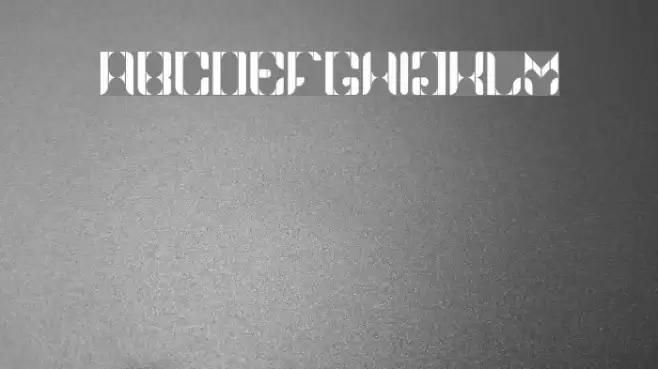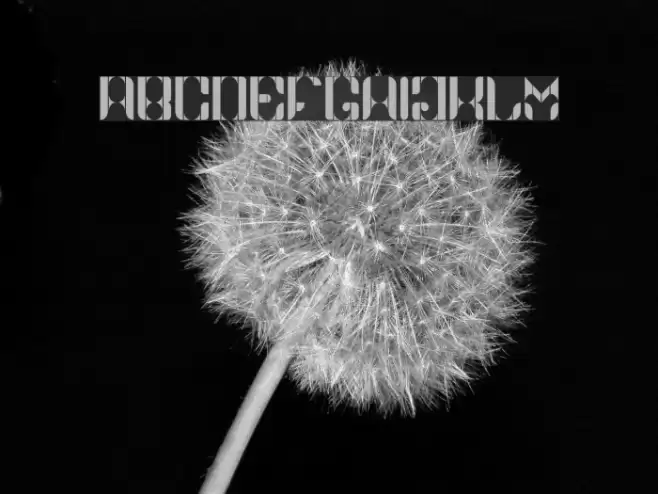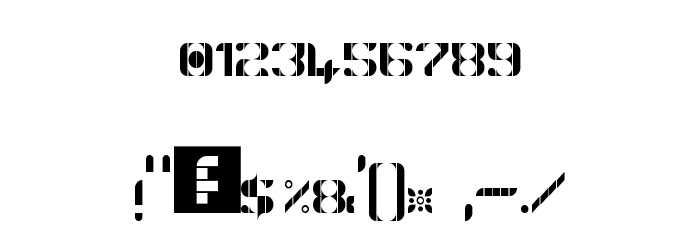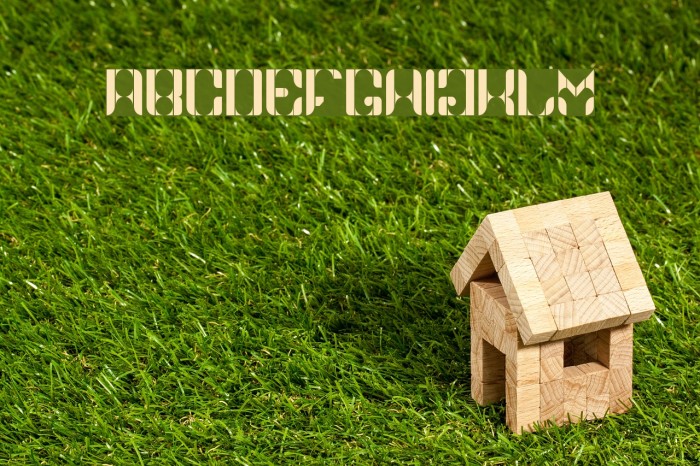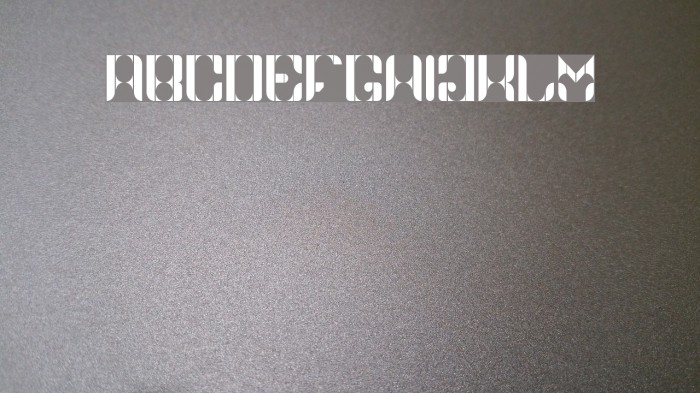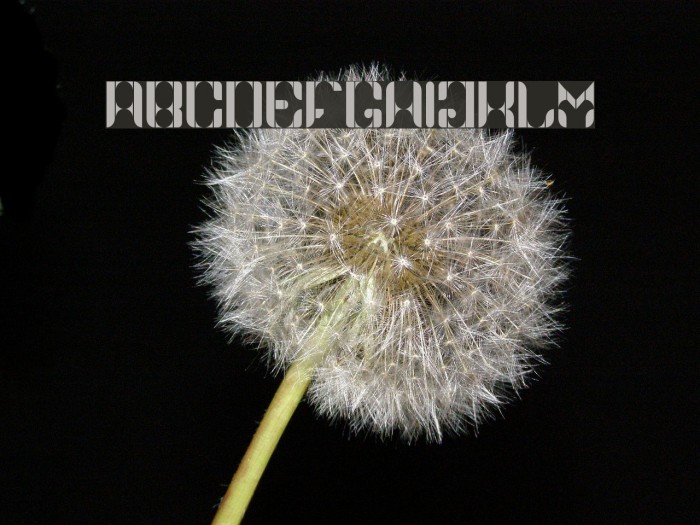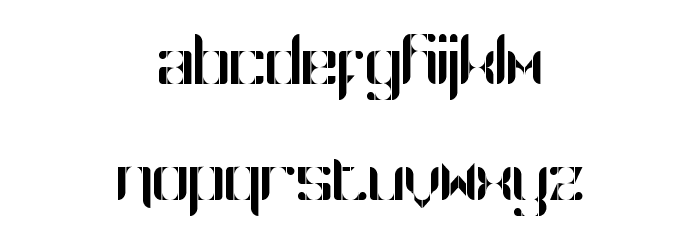
This font features a unique stencil-like design with geometric shapes and cutouts creating a modern and artistic appearance. The characters are bold and striking, with a consistent thickness throughout, giving it a strong visual impact. The uppercase and lowercase letters maintain a uniform style, while the numbers and special characters follow the same design principles, ensuring cohesion across all elements. The font's distinct style makes it suitable for creative and contemporary projects where a bold statement is desired.
A bold, stencil-like font with geometric cutouts for a modern look from Uncategorized fonts.